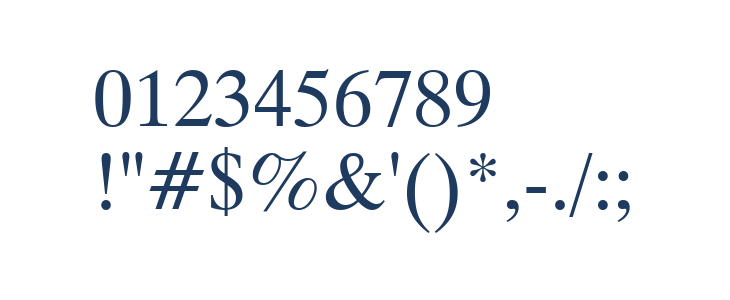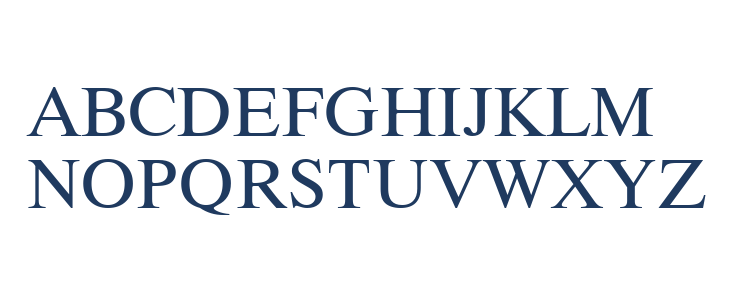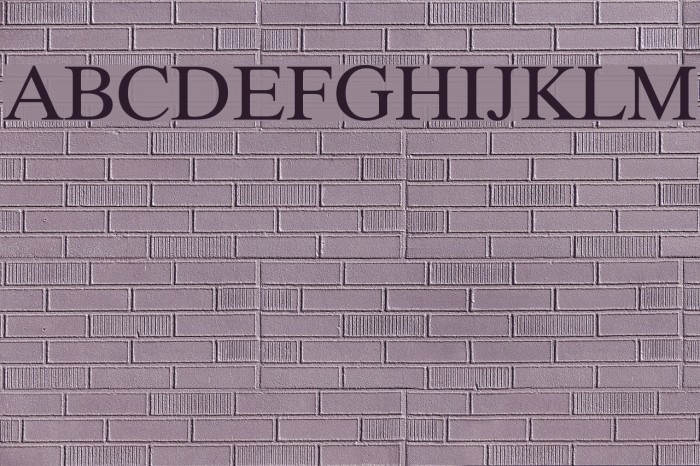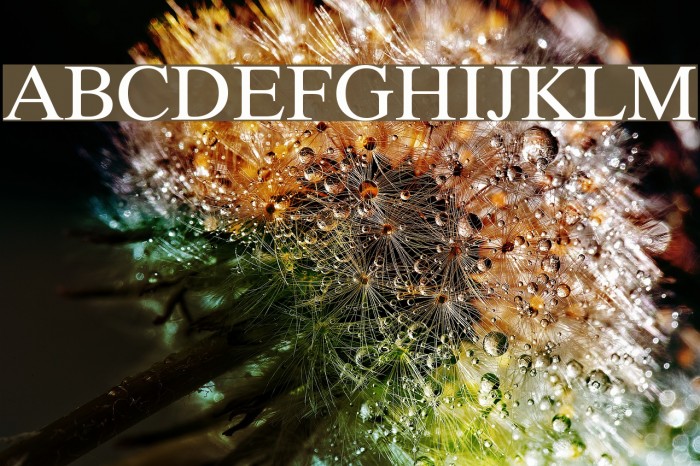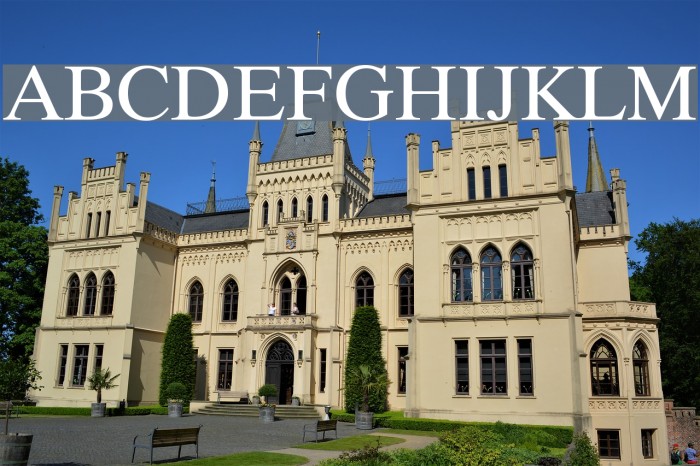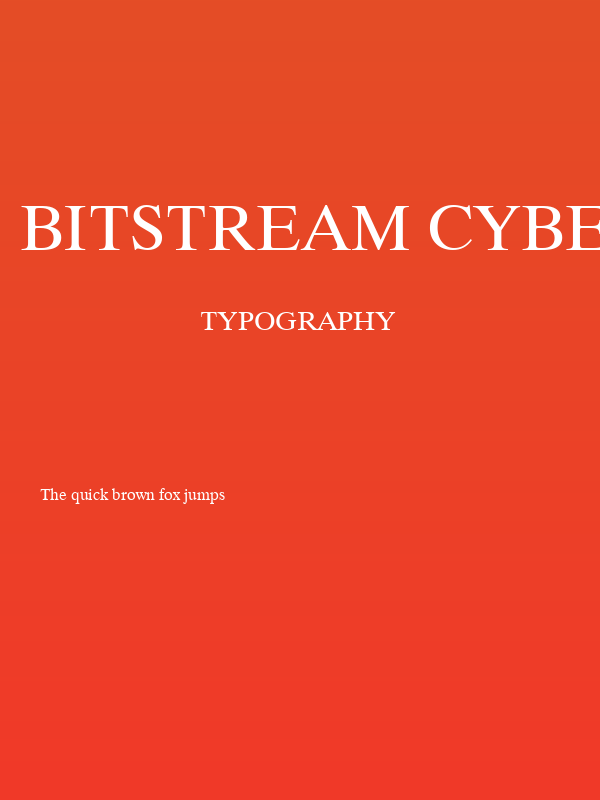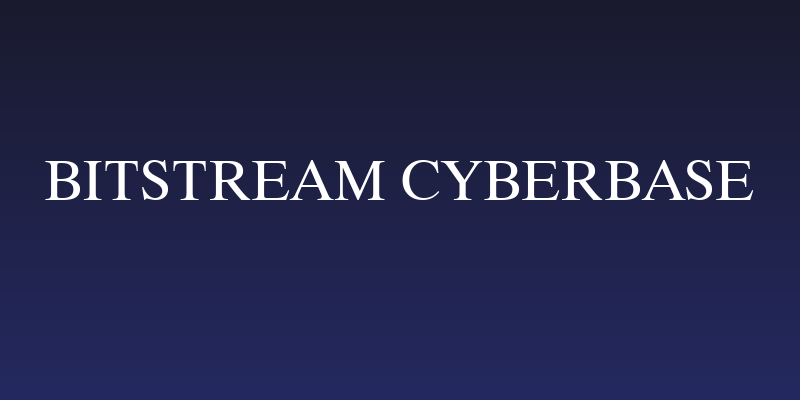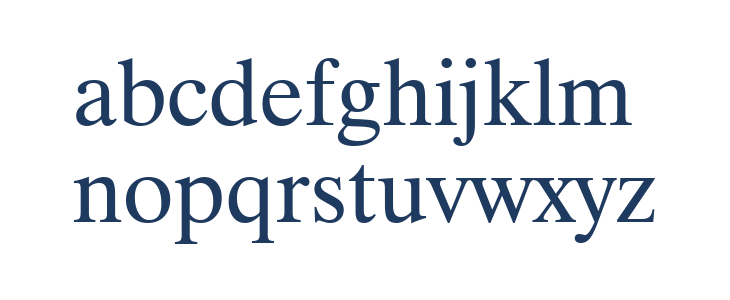
Bitstream CyberBase Font
Bitstream CyberBase Description
This font features a classic serif style with a modern twist, characterized by its elegant and refined letterforms. The uppercase letters are bold and commanding, while the lowercase letters maintain a graceful and balanced appearance. The numerals are clear and distinct, making them easily readable. Special characters are well-integrated, maintaining the overall aesthetic of the font. The strokes are consistent, with moderate contrast that adds to the readability and visual appeal. This font is versatile, suitable for both digital and print applications.
| Overall Style | Classic |
| Use Case | Headlines, Body text, Logos |
| Proposed Projects | Ideal for editorial design, book covers, formal invitations, and branding projects that require a touch of sophistication. |